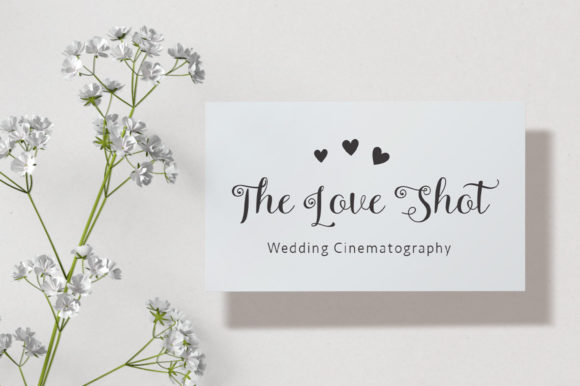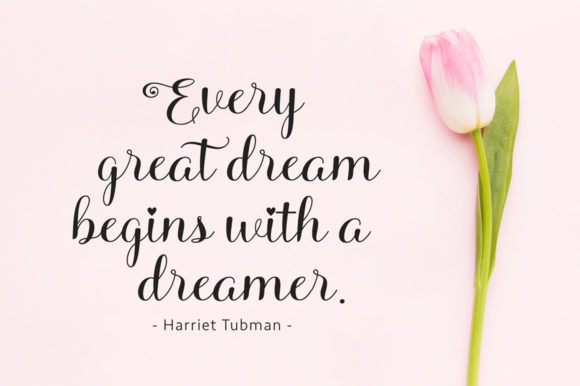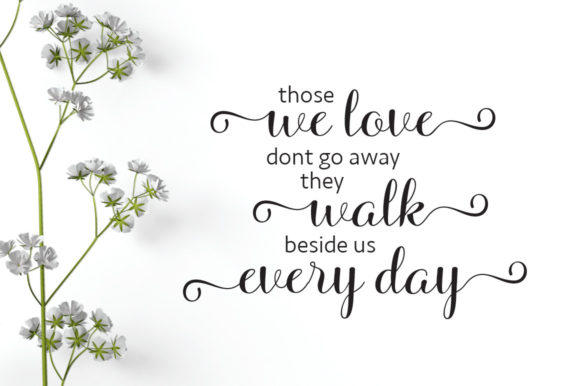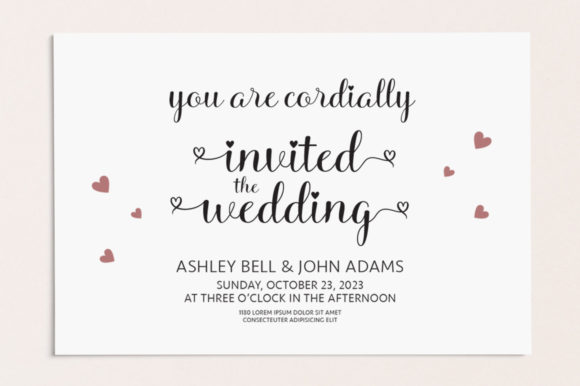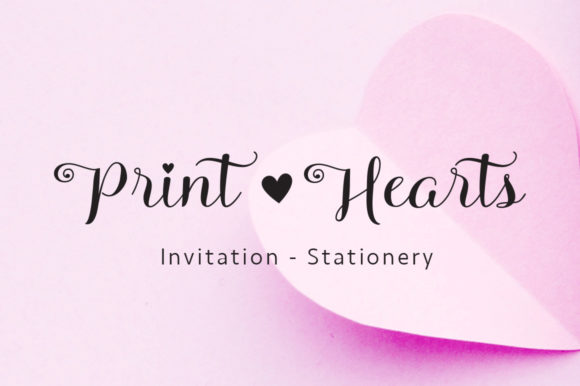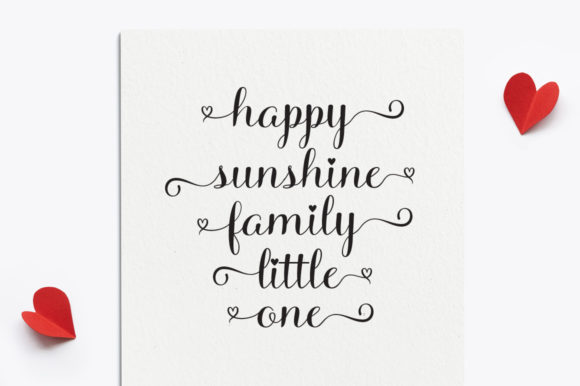
Introduction to Kittya Script Font
As you sit at your desk, surrounded by scribbled notes and scattered design ideas, you know that the perfect font can make all the difference in bringing your creative project to life. And for many designers, that perfect font is the elegant and sophisticated Kittya Script Font.
With its high-quality design and transparent background, Kittya Script Font is a valuable resource for any designer looking to add a touch of elegance to their work. Whether you’re creating a wedding invitation, a thank you card, or a logo, this beautiful script font is sure to impress. And the best part? It’s PUA encoded, making it easy to access all of the glyphs and swashes you need to make your design truly special.
As a free download, Kittya Script Font is a must-have design resource for any creative project. Its versatility and beauty make it a valuable asset for designers of all levels, and its transparent background makes it easy to use with any design element. Whether you’re a seasoned pro or just starting out, Kittya Script Font is sure to be a valuable addition to your design arsenal.
Key Features of Kittya Script Font
- Unique, handwritten script font with a high-quality design, ideal for creative projects.
- Comes with a transparent background, making it easy to overlay on any image or design.
- Features a clean and elegant design, perfect for wedding invitations, quotes, and other creative projects.
Honest Review: Kittya Script Font
I recently had the chance to work with the Kittya Script Font, and I must say it’s been a game-changer for my design projects. As a designer, I’m always on the lookout for high-quality fonts that can elevate my work, and Kittya Script Font definitely delivers.
One of the things I love about Kittya Script Font is its beautiful, cursive design that adds a touch of elegance to any creative project. The transparent background makes it easy to layer and blend with other design elements, giving me endless possibilities for customization.
- Beautiful, cursive design perfect for creative projects
- Transparent background for easy layering and blending
- May not be suitable for sans-serif or modern designs
- Requires some manual tweaking to achieve perfect spacing
Overall, I’m thoroughly impressed with the Kittya Script Font. It’s a fantastic addition to any designer’s toolkit, offering endless possibilities for creative projects. If you’re looking for a high-quality font to elevate your designs, I highly recommend giving Kittya Script Font a try.
Tips for Getting the Most Out of Kittya Script Font
Use the font on a transparent background to create a beautiful, high-quality design. Experiment with different font sizes and styles to create visual interest. You can also use the font in conjunction with other design elements, such as graphics and textures, to create a unique and creative project.